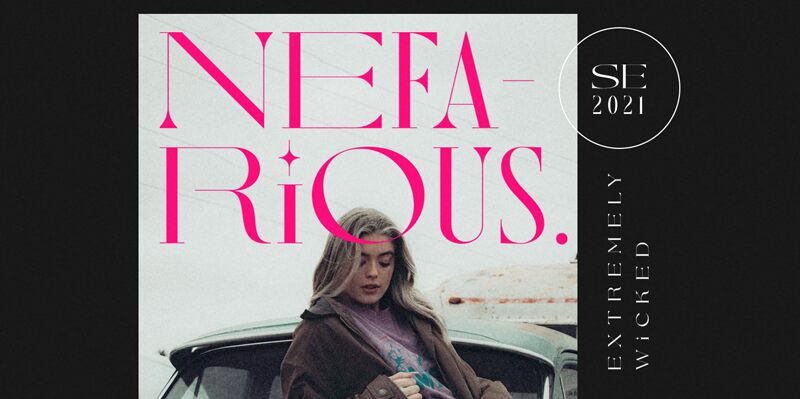
Introducing Nefarious, a light serif font designed by Sarid Ezra. Perfect for projects needing an elegant and distinguished look, Nefarious is perfect for creating invitations, logos, websites, and more.